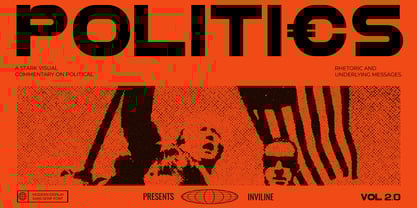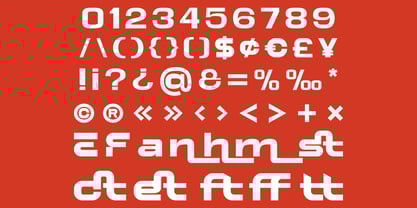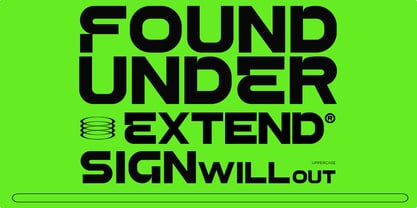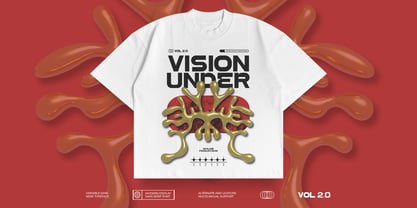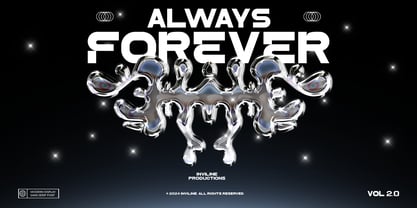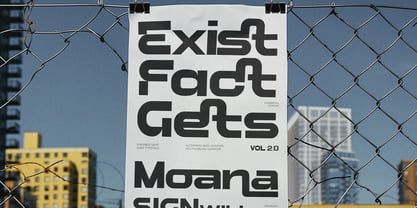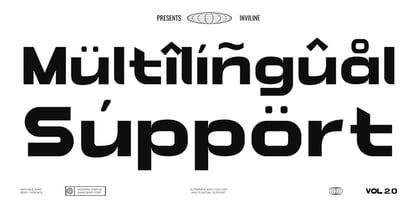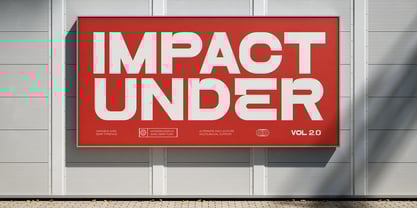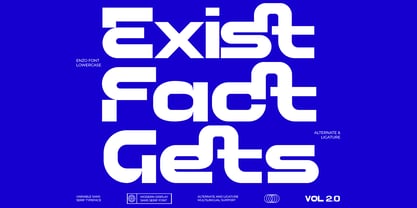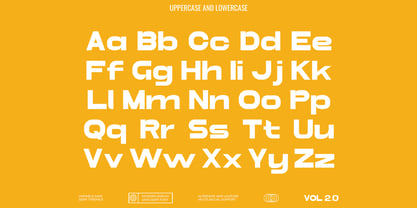
Enzo
by Inviline
The Enzo Font Family was designed by Virgiawan Listanto and published by Inviline. Enzo contains 1 styles.
Enzo Moana is a modern sans serif display typeface with a bold modular structure and unique ligatures, offering variable weight for versatile creative needs. This font comes with full uppercase and lowercase characters, multilingual support, alternate glyphs, numbers, symbols, and beautifully crafted ligatures—perfect for bold headlines, cutting-edge branding, posters, motion graphics, futuristic UI, editorial layouts, and design projects that demand a statement-making type with a clean yet experimental vibe.
Designers: Virgiawan Listanto
Publisher: Inviline
Foundry: Inviline
Design Owner: Inviline